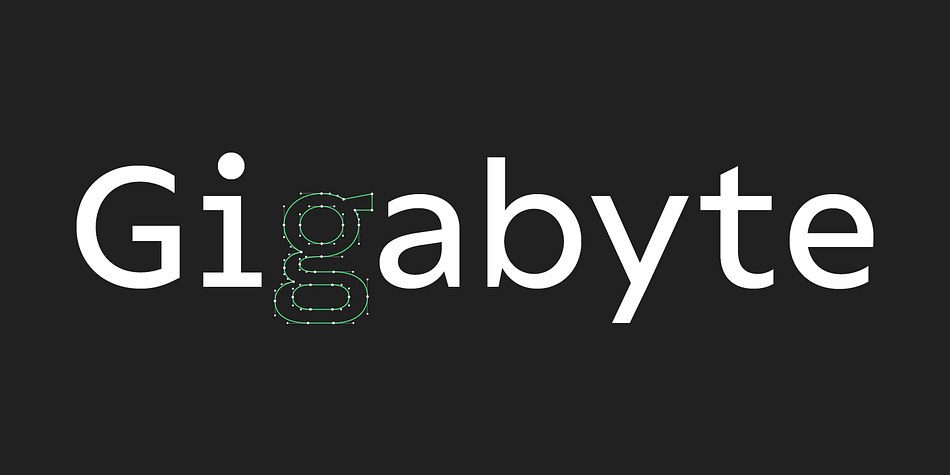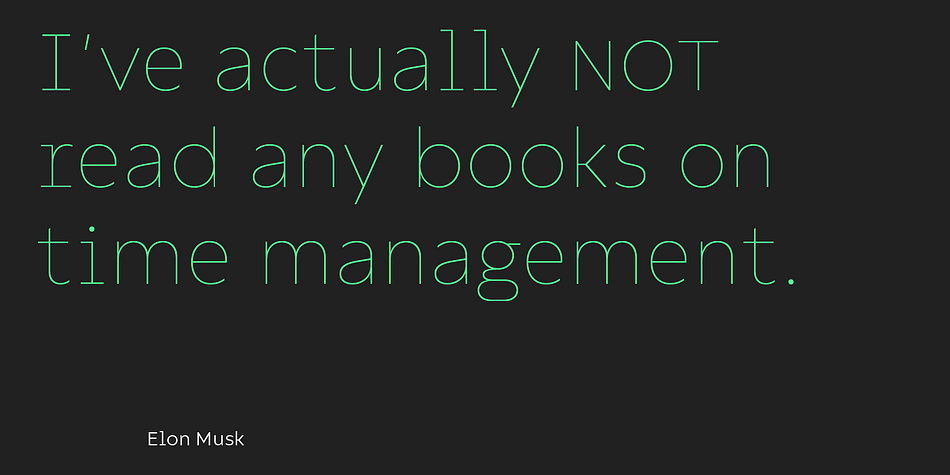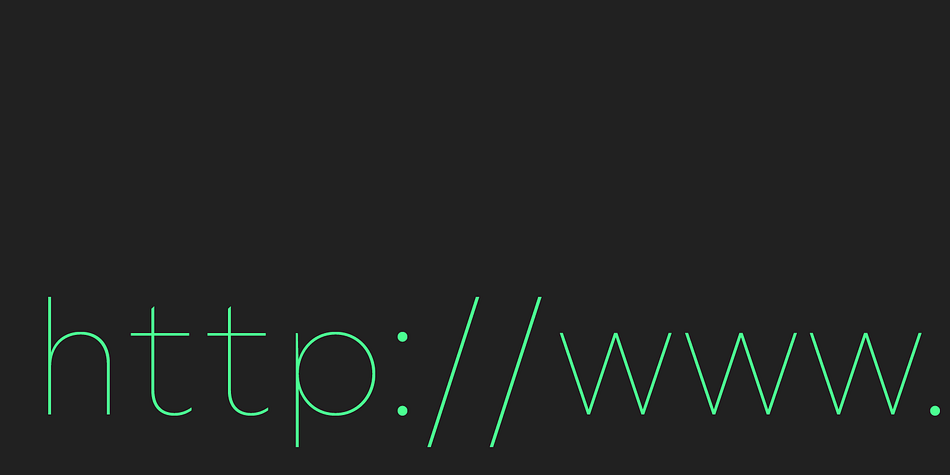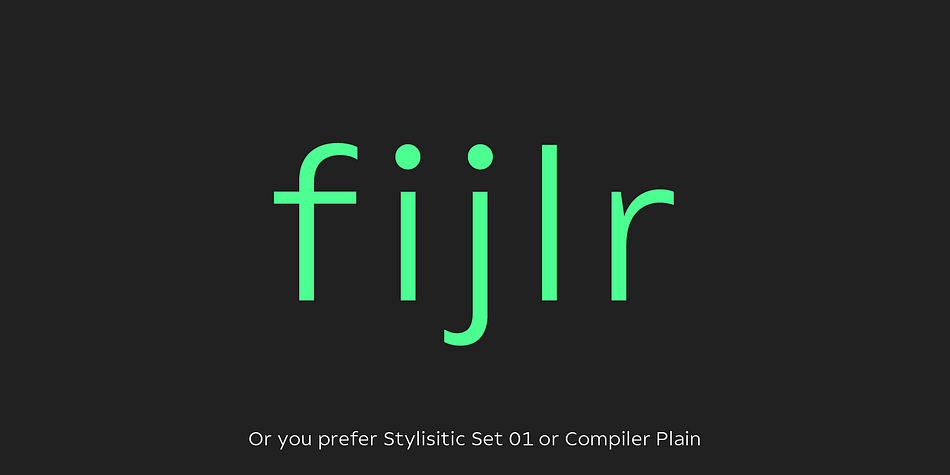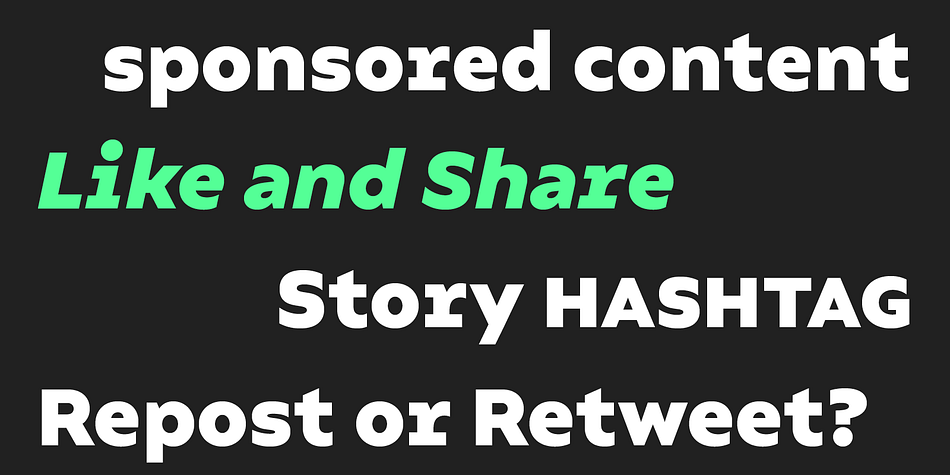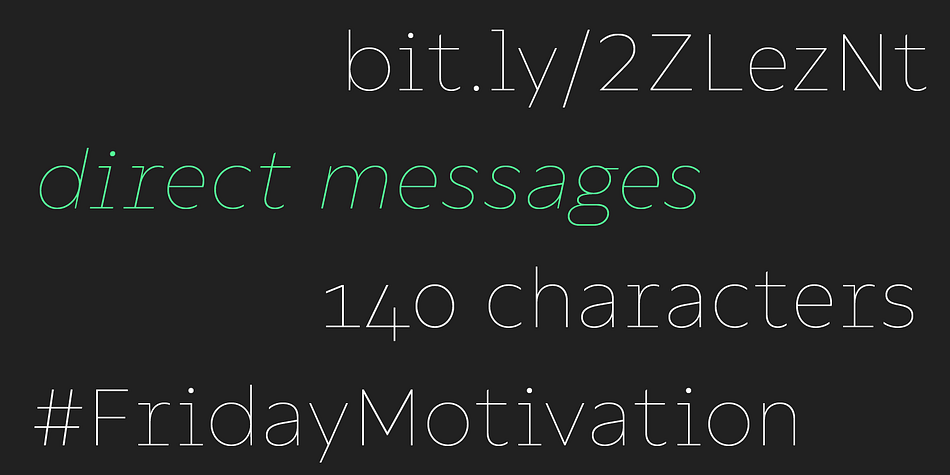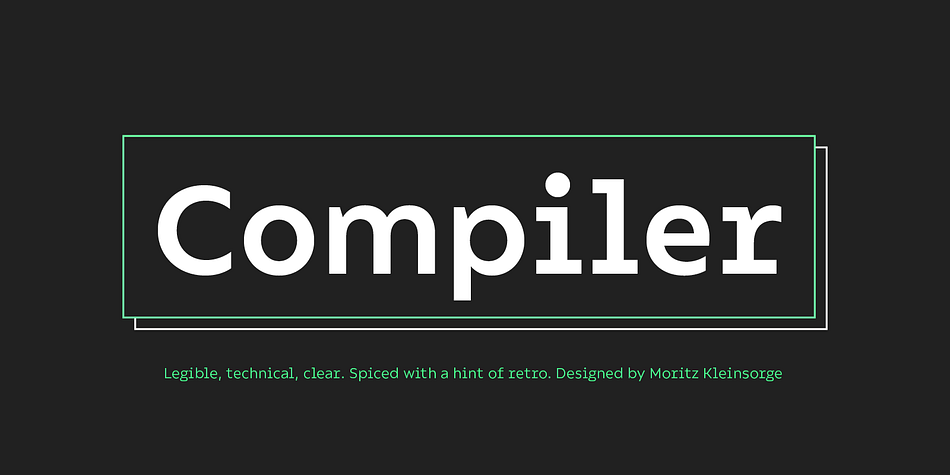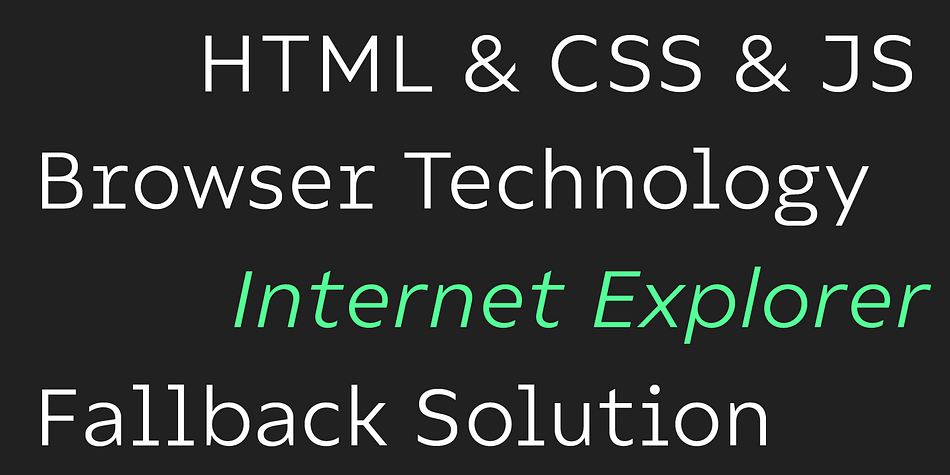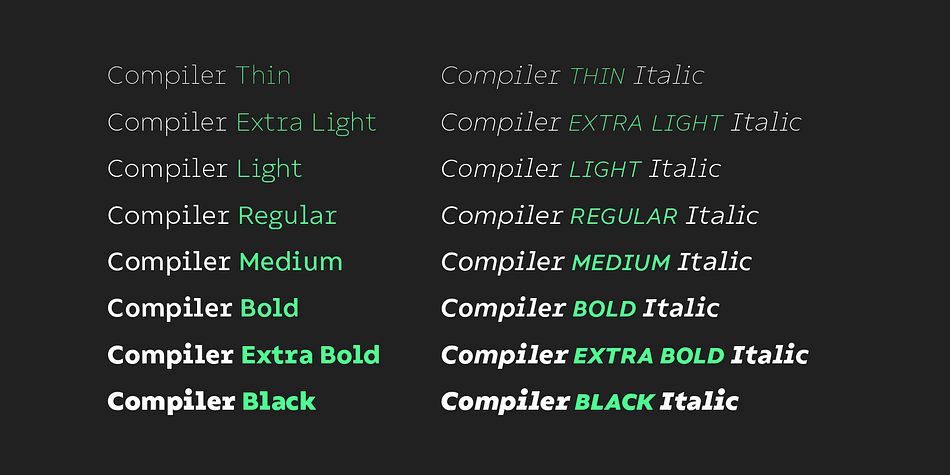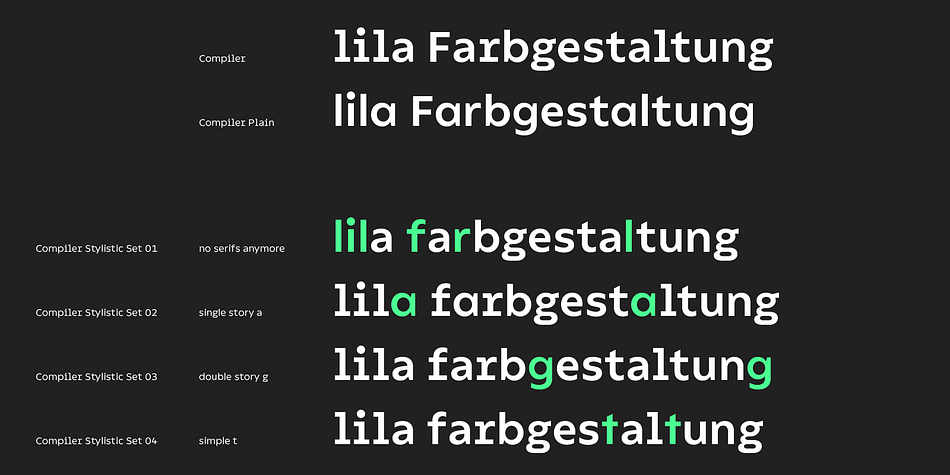
Designed by Moritz Kleinsorge, Compiler is a display sans and sans serif font family. This typeface has thirty-two styles and was published by Identity Letters.
Legible, technical, clear—with a hint of retro: Compiler is a no-frills font family straight from the heart of a microprocessor.
Inspired by console typefaces, the humanist sans serif typeface combines a large x-height with striking serifs on certain letters such as i and l. Those serifs evoke the aesthetics of monospace typefaces for programming. Even though Compiler is a proportional typeface, this detail improves glyph recognition and helps differentiate between individual letters. Combined with vertical stroke ends, which allow for particularly even spacing, the serifs make for an extremely legible typeface. (Even in small sizes.)
Brand recognition guaranteed: Compiler is ideal for applications that require a mechanical flavor without appearing offish. You can use it for websites, apps, branding, corporate design, annual reports, signage, and many other areas with perfect results.
Compiler consists of two font families; the second one is Compiler Plain. In Compiler Plain, the signature letters lose their serifs and the forms of “a” and “g” are simplified. This way, the shapes are neutralized. The technical impression recedes into the background. Both families can be combined smoothly: you might use the standard Compiler fonts for display sizes and Compiler Plain styles for body copy. For total design control, you can toggle each of the defining design elements individually from Compiler to Compiler Plain and vice versa. Just use Stylistic Sets to fine-tune your Compiler fonts.
Compiler provides you with 8 weights in 4 variations: Upright, Italics, Plain Upright and Plain Italics. That’s a total of 32 fonts. Each style contains more than 860 glyphs, including advanced typographic tools such as proportional and tabular figures (both lining and old-style) or small caps—something you’ll rarely find in this genre. Other glyphs are optimized for display sizes, such as circled figures and various arrows. There’s also a set of glyphs designed for web use: with symbols for shopping carts, hamburger menus or checkboxes, you can implement your web projects elegantly and consistently without relying on third-party tools (like an external icon font).
Powered by highly productive OpenType functions, Compiler is an intermedia workhorse straight from cyberspace.